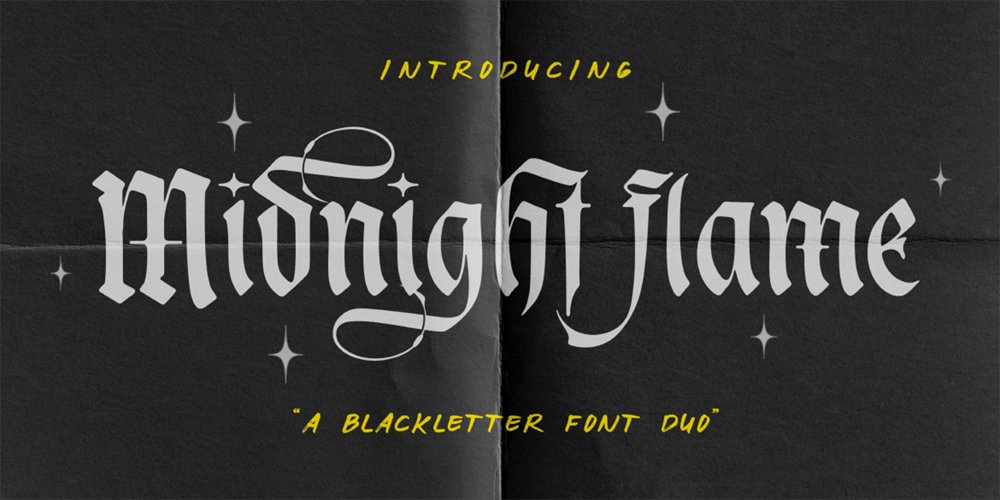
Midnight Flame
Midnight Flame font
Midnight Flame Font Family was designed by Rochadi Sudarma and published by Rochart. Midnight Flame contains 2 styles and family package options. Introducing Midnight Flame, a powerful Blackletter/Gothic font with an array of amazing features. This font showcases the essence of medieval calligraphy with its bold and dramatic letterforms, evoking a sense of mystique and elegance.With Midnight Flame, you’ll have access to 7 stylistic alternates, allowing you to experiment and create unique and captivating designs. The ligature feature further enhances the flow and continuity of the text, adding an extra level of sophistication.Additionally, Midnight Flame is designed to support multiple languages, making it versatile and inclusive for various projects. Whether you’re working on branding, logo design, apparel, or editorial pieces, this font will make a striking impact.But that’s not all! As a bonus, you’ll also receive a complementary font brush, adding a touch of organic and handcrafted feel to your designs.Unleash the power of Midnight Flame and ignite your creativity with this captivating Blackletter/Gothic font. Let its medieval charm and modern versatility elevate your projects to new heights. To enable the OpenType Stylistic alternates, you need a program that supports OpenType features, such as Adobe Illustrator CS, Adobe Indesign & CorelDraw X6-X7.Guides to access all alternates glyph : http://adobe.ly/1m1fn4YCheers!